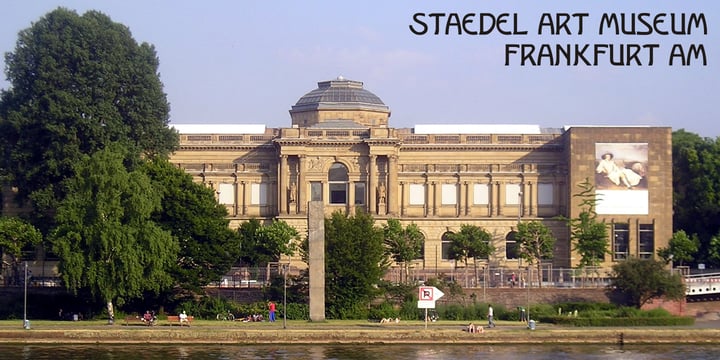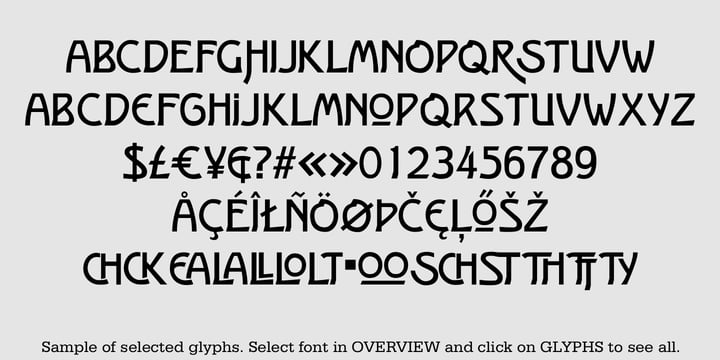
Kunstler Grotesk
Künstler Grotesk ML is one of a number of typeface designs that attempts to reconcile Germany’s blackletter tradition with the international familiarity of roman letterforms in a simple, robust design suitable for meeting the demands of a modern industrial economy, while rejecting the extraneous ornamentation of the departing Victorian era. It is an all-cap design with a number of playful ligatures. It has an appealing boldness that reverses well. Künstler means ‘artist’ in German. I had always assumed it was a person’s name until I came across the translation. Lesson: conjecture is not fact. Grotesk refers to a sans serif letterform tradition. Kunstler Grotesk was originally released by Bauer'sche Giesserei of Frankfurt am Main circa 1900. Künstler Grotesk ML represents a major extension of the original release, with the following changes: 1. Added glyphs for the 1250 Central Europe, the 1252 Turkish and the 1257 Baltic Code Pages. Added glyphs to complete standard 1252 Western Europe Code Page. Special glyphs relocated and assigned Unicode codepoints, some in Private Use area. Total of 350 glyphs, 260 kerning pairs. 2. Added OpenType GSUB layout features: pnum, salt, dlig (19) and hist. 3. Revised vertical metrics for improved cross-platform line spacing. 4. Redesigned mathematical operators. 5. Included tabular (std) & proportional (opt) numbers. 6. Refined various glyph outlines. 7. Made CcNnOoSsZz-kreska available (salt). 8. Incorporated alternate glyphs in lower case.